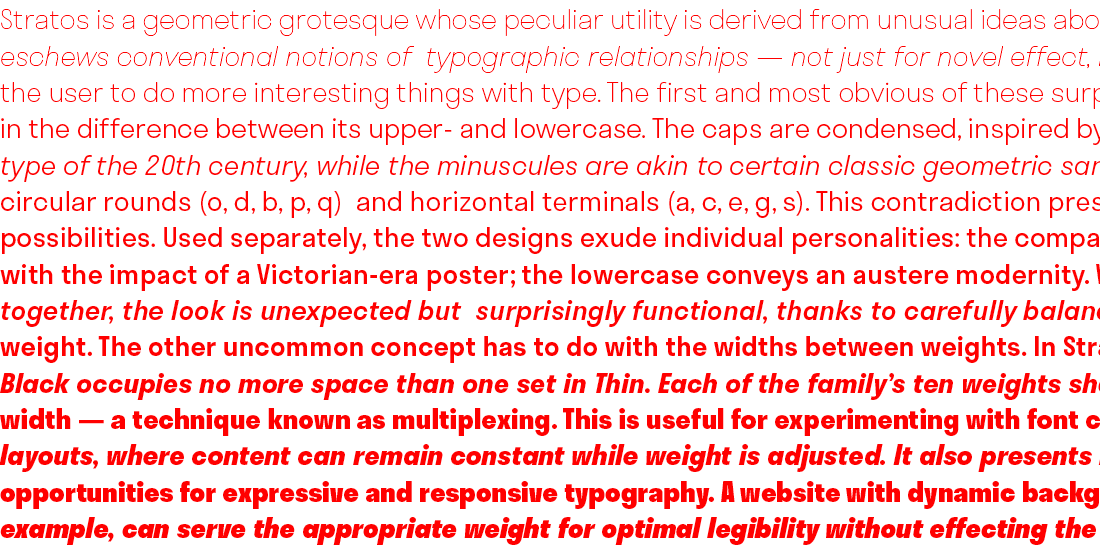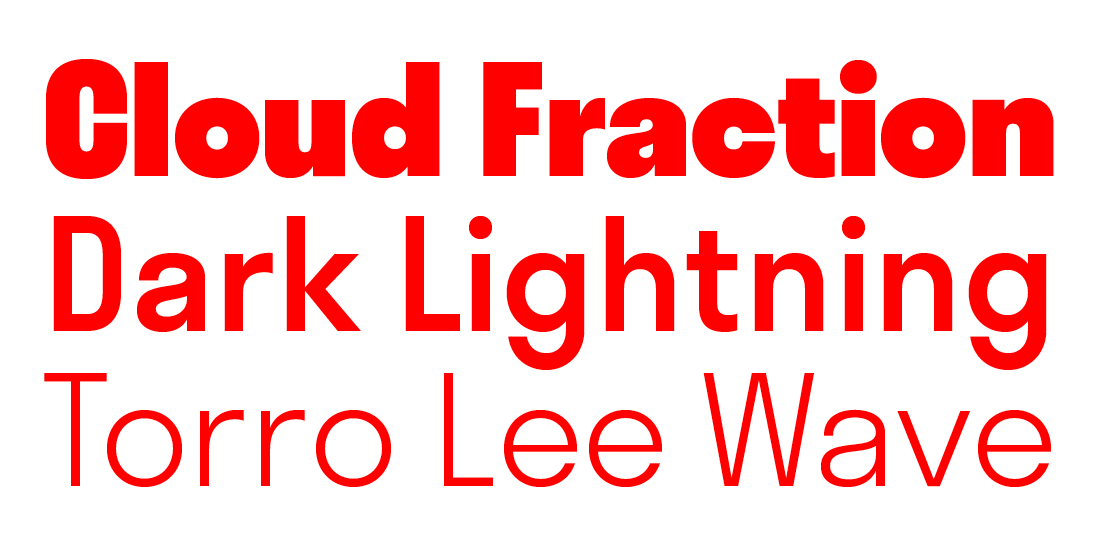
Name: Stratos
Designer: Yoann Minet, with art direction by Emmanuel Labard
Foundry: Production Type
Release Date: February 2016. Cyrillic by Ilya Ruderman & Yury Ostromentsky released in 2017, and Greek by Irene Vlachou released in 2018.
Back Story: Emmanuel Labard, a graphic designer at Parisian studio l’Atelier Collectif, began collaborating with Yoann Minet in 2014 on a custom typeface for an exhibition entitled Filming the War: the Soviets and the Holocaust (1941–1946). Working with a limited budget and compressed time frame, they initially designed just a single style, what Labard called a “sausage typeface,” with distinct rounded terminals. Minet kept going until he hit upon the idea of creating a sans serif featuring condensed capitals alongside normal geometric lowercase letterforms, to provide different hierarchic levels and tones with a single typeface. The designers added Cyrillic and then Greek characters in the years following, leading to a 2017 Type Directors Club award for the typeface family.
Why’s it called Stratos? Labard came to the project fresh off a vacation on the Grecian island of Tinos, where he rented a tiny house from a memorable local character nicknamed Stratos. When he proposed naming their new typeface after his holiday landlord, Minet liked the fact that it was close to words like stratum/strata and stratosphere, echoing the fact that the typeface has many different visual layers baked in to its design.
What are its distinguishing characteristics? Stratos is a family that rethinks concepts of weight and width within a single style. The first and most obvious of these surprises can be seen in the difference between its upper- and lowercase: the condensed caps are inspired by gothic wood type of the 20th century, while the minuscules are akin to certain classic geometric sans serifs. Stratos is multiplexed—each of the family’s ten weights share a common width—so a line set in Black occupies no more space than one set in Thin.
What should I use it for? From logotypes and branding to packaging, signage, book or magazine design, the designers created Stratos as a workhorse for all design uses. “We’re still amazed by the way each person uses it,” says Quentin Schmerber, a designer at Production Type. “It looks very different depending on the weight.”
What other typefaces do you like to pair it with? Stratos was teamed up with Minotaur in the catalog for the Filming the War exhibition, but is so versatile that it can be matched nicely with almost every typeface in Production Type’s catalog. For a crisp serif pairing, try the Cardinal collection. Or take a look at Enfantine for a loopy, scripty kick.